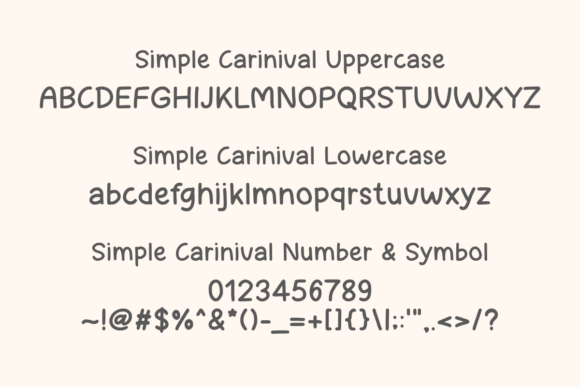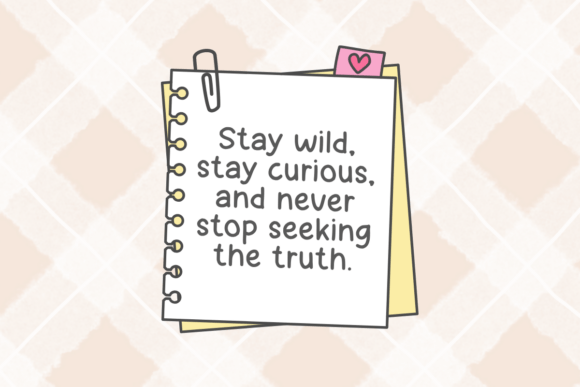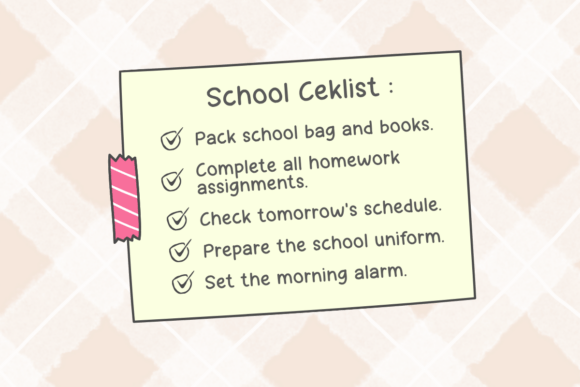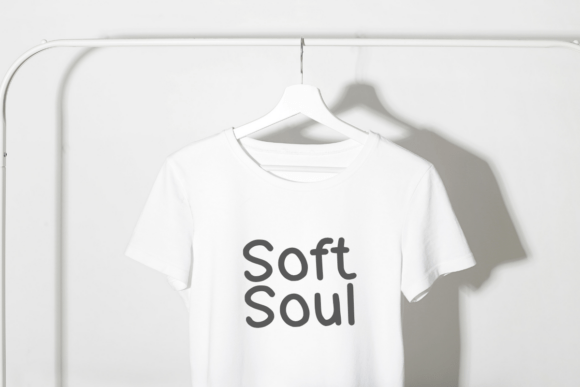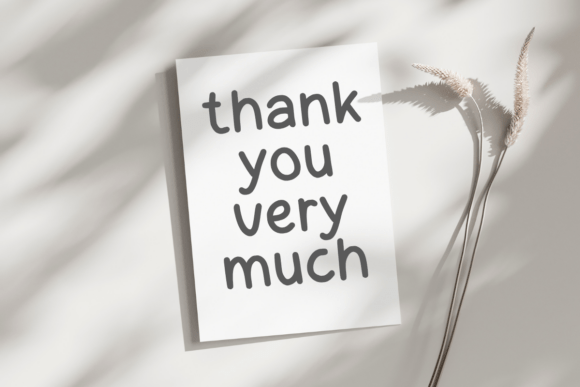
Introduction to Simple Carnival Font
Do you remember that moment when you finally nailed the perfect design for your handmade journal, and it felt like a work of art? The perfect balance of colors, the elegant script, and the overall aesthetic that made your creation stand out from the rest. For designers, that feeling is what drives us to keep creating, and it’s exactly what the Simple Carnival Font is all about.
With its elegantly minimalist design, this free font is a game-changer for any creative project. Whether you’re crafting planners, interior decor, or inspirational quotes, the Simple Carnival Font brings a touch of sophistication and simplicity to your work. Its high-quality design makes it a valuable resource for designers, and the fact that it’s available for free download only adds to its appeal.
From stickers to labels, and from mugs to tote bags, the Simple Carnival Font is the perfect addition to your design arsenal. With its transparent background, you can easily integrate it into your projects, and the result is a truly unique and eye-catching creation.
Key Features of Simple Carnival Font
- Unique Hand-Drawn Design: The Simple Carnival Font features a distinctive hand-drawn style, perfect for adding a creative touch to your design project.
- High-Quality Design Resource: This font is designed to meet the highest standards of quality, making it an excellent choice for any professional or personal project.
- Perfect for Creative Projects: The Simple Carnival Font is ideal for use in creative projects, such as illustrations, graphics, and typography-based designs.
Honest Review: Simple Carnival Font
I recently stumbled upon the Simple Carnival Font and I must say it’s a fantastic addition to any design resource library. The moment I downloaded it, I was excited to incorporate it into my next creative project.
What works well about this font is its versatility. The Simple Carnival Font is perfect for any project that requires a playful touch, from advertisements to social media graphics. The font’s bold and colorful design elements make it ideal for eye-catching headlines and titles.
Here are some key features that make this font stand out:
- High-quality design: The font is well-crafted and has a professional feel to it.
However, there are a few limitations to consider. The font may not be suitable for projects that require a more minimalist or subtle design aesthetic. Additionally, the font’s bold design elements can be overwhelming if not used sparingly.
Overall, I’m impressed with the Simple Carnival Font and would highly recommend it to designers looking for a fun and creative font to add to their design resource library.